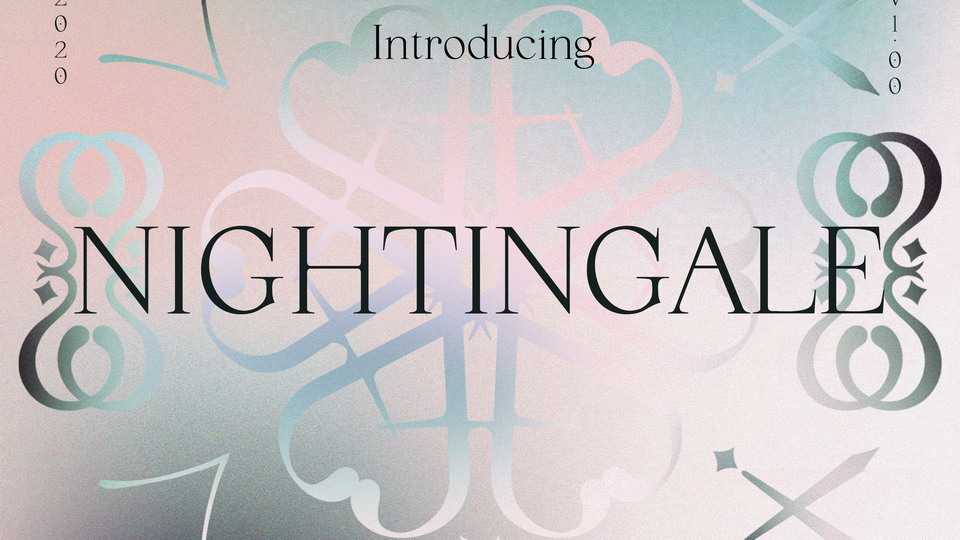
Download Nightingale font, a typeface for all serif lovers who enjoy sophisticated, delicate and elevating type designs. Nightingale works greatly with prints, editorials, fashion, advertising and packaging.
Designer: Death of Typography